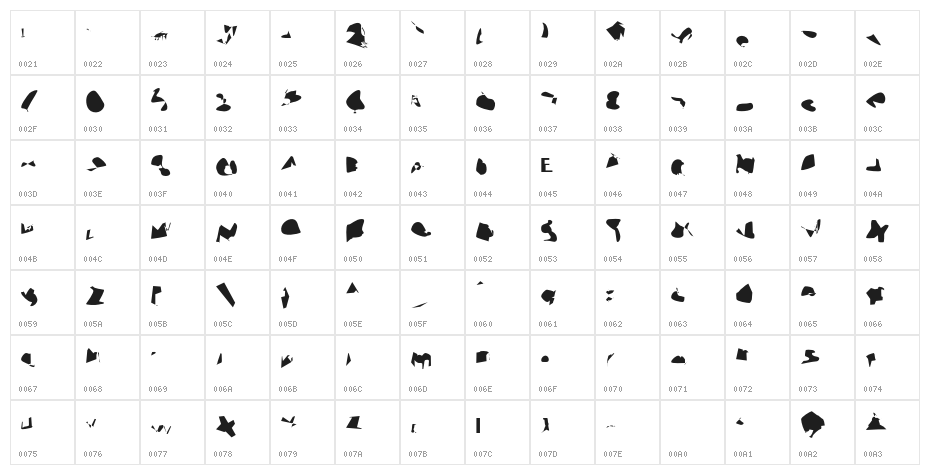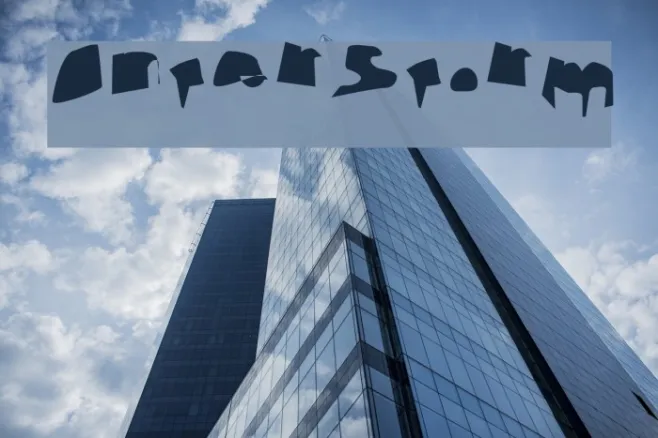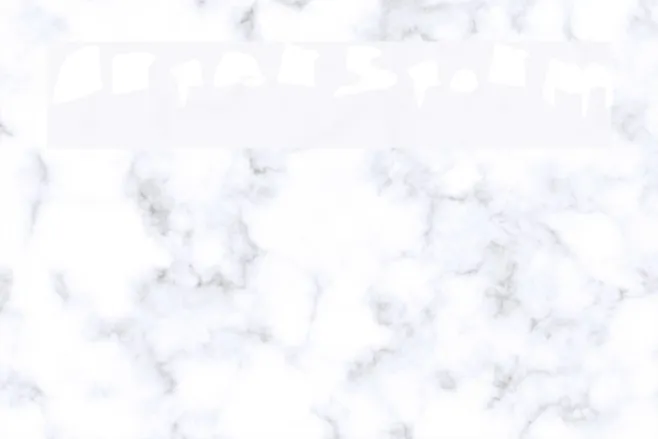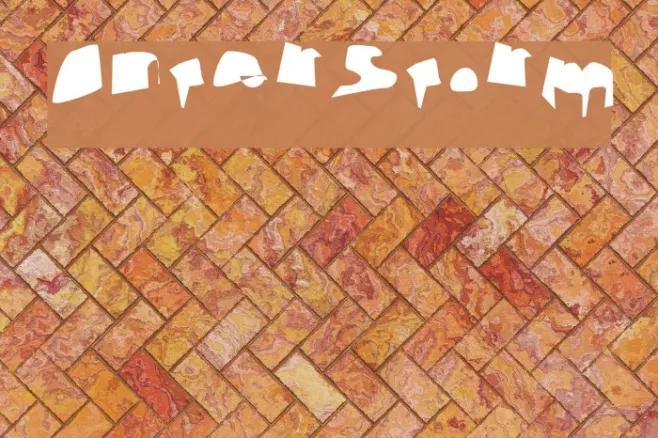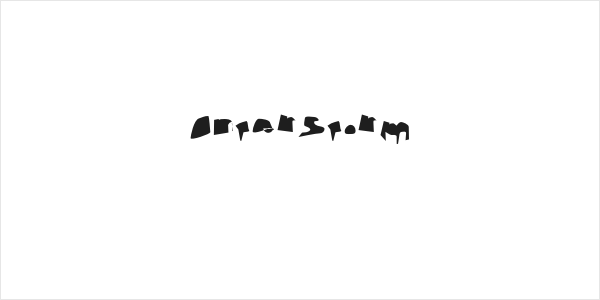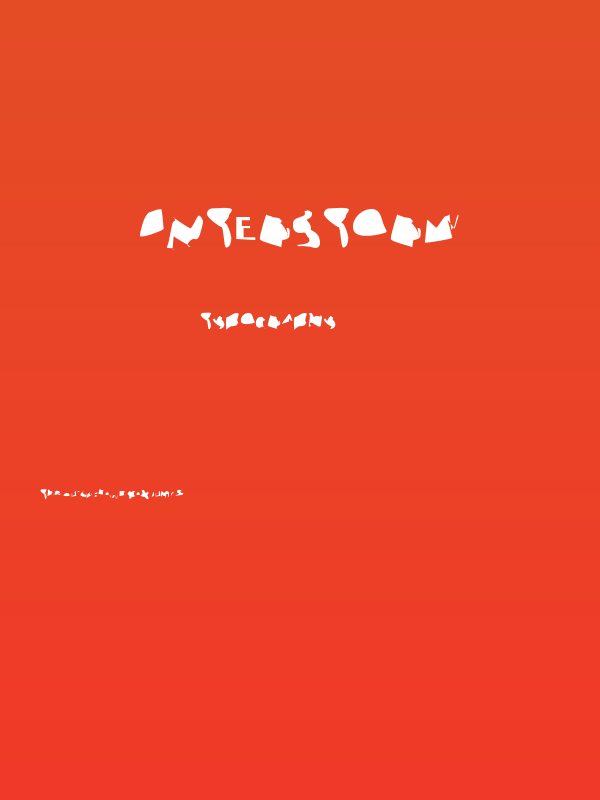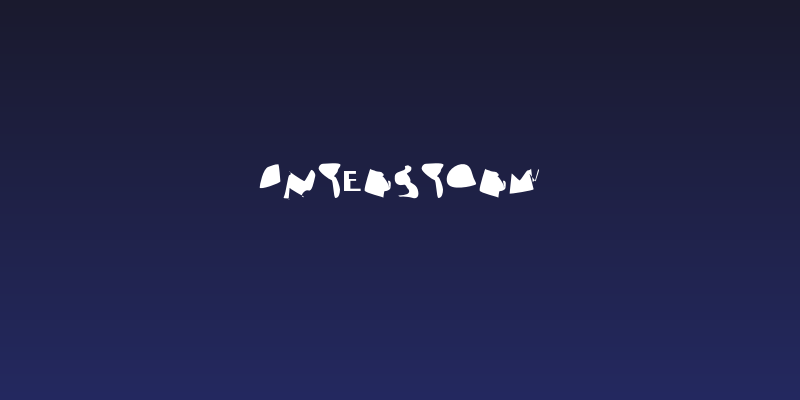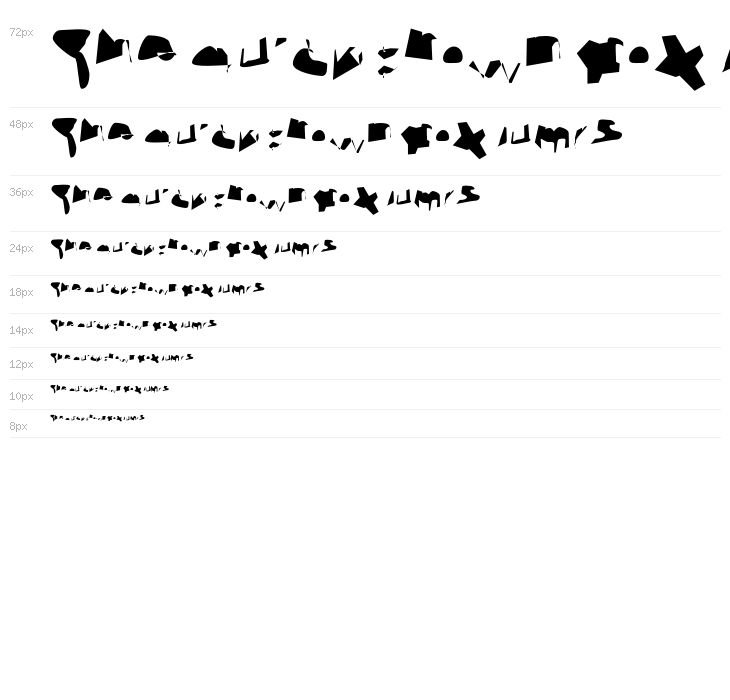
Interstorm Font
Interstorm Description
This font presents a highly abstract and fragmented style, characterized by its irregular and jagged shapes. Each character appears as if it has been shattered or distorted, creating a chaotic yet intriguing visual effect. The font lacks uniformity in stroke width and spacing, contributing to its unique and unconventional appearance. It is not easily readable at a glance, making it more suitable for artistic or decorative purposes rather than practical text applications. The overall design evokes a sense of disruption and creativity, appealing to those looking for a bold and avant-garde typographic statement.
| Overall Style | Avant-garde, Abstract |
| Use Case | Logos, Posters, Artistic Displays |
| Proposed Projects | Ideal for artistic projects, album covers, experimental designs, or any creative work seeking a bold, unconventional look. |